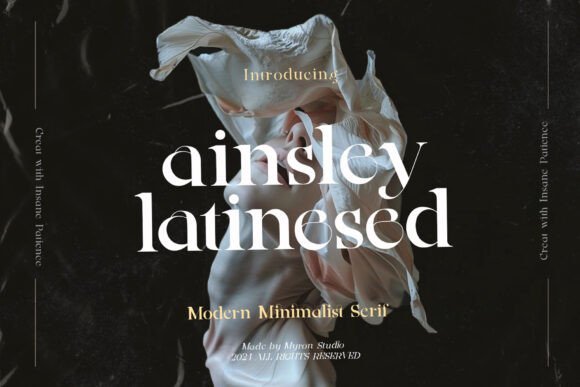
The Perfect Blend of Elegance and Versatility
Have you ever stared at a blank page, trying to find the perfect font to convey your message? You’re not alone. Designers around the world struggle to find the perfect typeface that embodies their brand’s personality and aesthetic. But what if you could find a font that combines classic elegance with a modern touch?
Enter Ainsley Latinesed Font, a vintage serif typeface that brings minimalism and luxury to any design. With its four distinctive styles and extended Latin character support for nearly 70 languages, this typeface is a game-changer for designers. Whether you’re working on a large-scale headline or a cosmetic packaging design, Ainsley Latinesed Font’s high-contrast design makes it an ideal choice for impactful applications.
Ainsley Latinesed Font Key Features
- Font Family: Ainsley Latinesed Font is a unique, hand-crafted font family designed specifically for Latin-based languages.
- Unique Characteristics: Features a distinctive, elegant design with intricate details and subtle flair, making it perfect for creating visually striking typography.
Ainsley Latinesed Font Review
Overall, I think the Ainsley Latinesed Font has some nice qualities that make it worth considering for your next design project.
- The Ainsley Latinesed Font has a clean and modern aesthetic that makes it suitable for a variety of applications, from corporate materials to creative projects.
- The font is highly legible, even at smaller sizes, which is a big plus for designers who need to ensure their text is easy to read.
- The font family includes a range of weights and styles, giving designers plenty of options for customizing their text.
- The Ainsley Latinesed Font may not be the best choice for projects that require a more classic or traditional look.
- The font may not be as versatile as some other fonts, and may not be suitable for projects that require a lot of bold or italic text.
- The font could benefit from a more extensive character set, including more international characters and symbols.
Overall, the Ainsley Latinesed Font is a solid choice for designers who need a clean and modern font for their projects. While it may have some limitations, it’s a great option for designers who want a versatile and easy-to-read font.
For best results, use Ainsley Latinesed Font in conjunction with a clean and simple design aesthetic.
Alternatives to Ainsley Latinesed Font for Designers
The Great Vibes Font is a modern script font that features elegant and flowing lines. It is perfect for use in headings, titles, and logos where a touch of sophistication is required. Compared to Ainsley Latinesed Font, Great Vibes Font has a more refined and polished look, making it suitable for high-end branding and design projects.
Pacifico is a beautiful script font that exudes a relaxed and casual vibe. It is ideal for use in signage, brochures, and other marketing materials where a friendly and approachable tone is desired. Unlike Ainsley Latinesed Font, Pacifico has a more laid-back feel, making it suitable for outdoor and recreational branding.
Carolyna Pro is a elegant and refined script font that features intricate details and flourishes. It is perfect for use in high-end branding, packaging, and luxury design projects where a touch of sophistication and elegance is required. Compared to Ainsley Latinesed Font, Carolyna Pro has a more luxurious and high-end feel, making it suitable for premium branding and design projects.